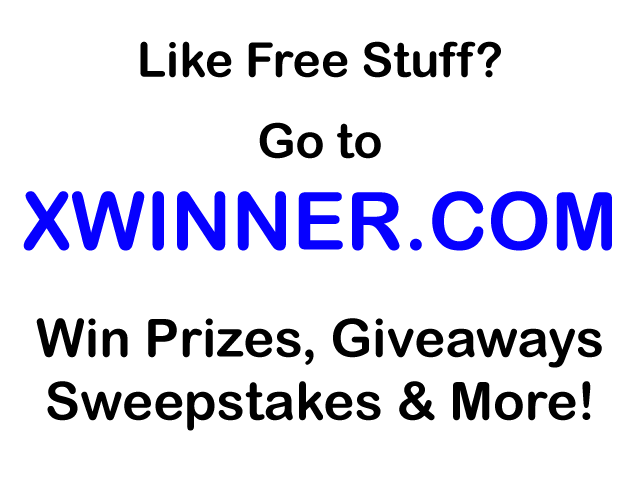
Lau said:Chicago, I believe. Then again, looking at your screen shot it looks differenr, but that could be due to size, compression, etc. I'm sure someone will come along and kick my arse if it's wrong...
max_altitude said:I remember when Chicago was like *the* font to use about 10 years ago in primary school. Fortunately we have Comic Sans now. 😀 😛
I think you'll have to lock in c), not that there's anything wrong with that at all! 🙂Lau said:I used Chicago to spray paint my house number and street on to our recycling box instead of just freehanding it like everyone else. Does that make me a) an Apple geek, b) a graphics geek or c) both? 😀
max_altitude said:I think you'll have to lock in c), not that there's anything wrong with that at all! 🙂